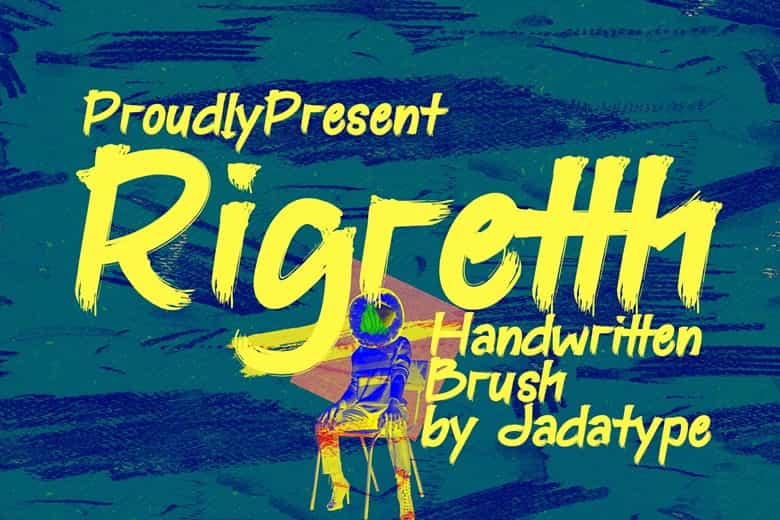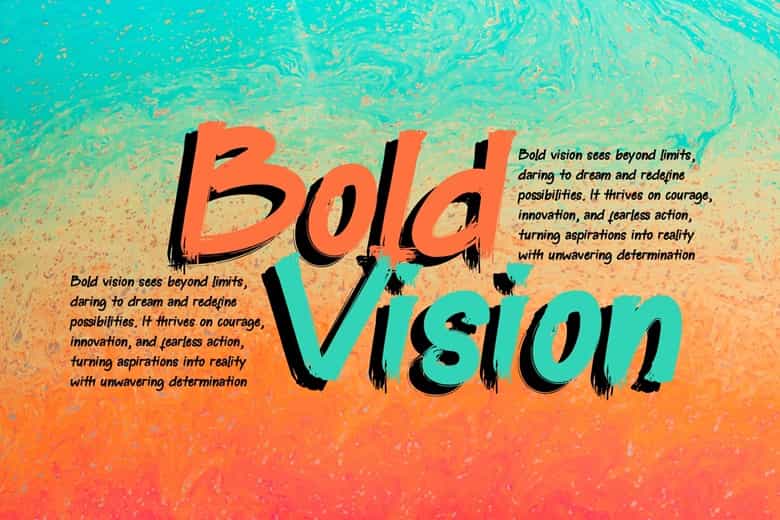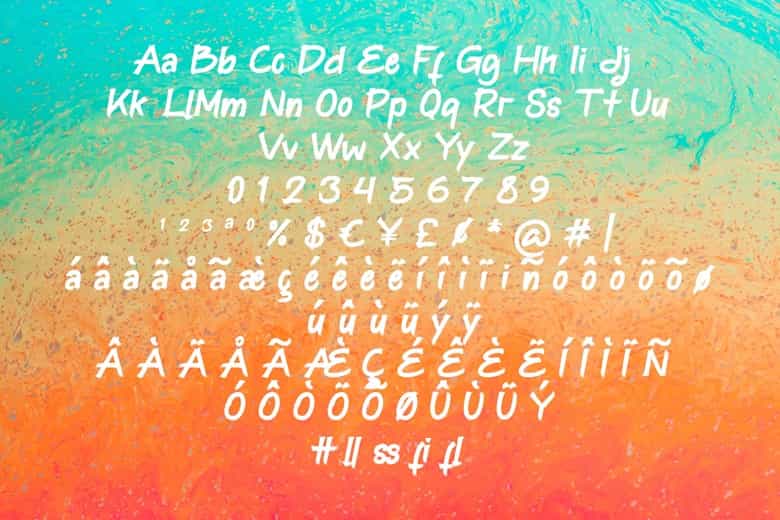
Discover Rigretth Font, part of the Brush collection—a versatile and unique font perfect for adding a personal touch to your projects. Download it for free and enjoy crafting designs with style, from invitations to social media posts. This font is available exclusively for personal use, giving you the freedom to create without limits. Unlock your creativity with Rigretth Font today!